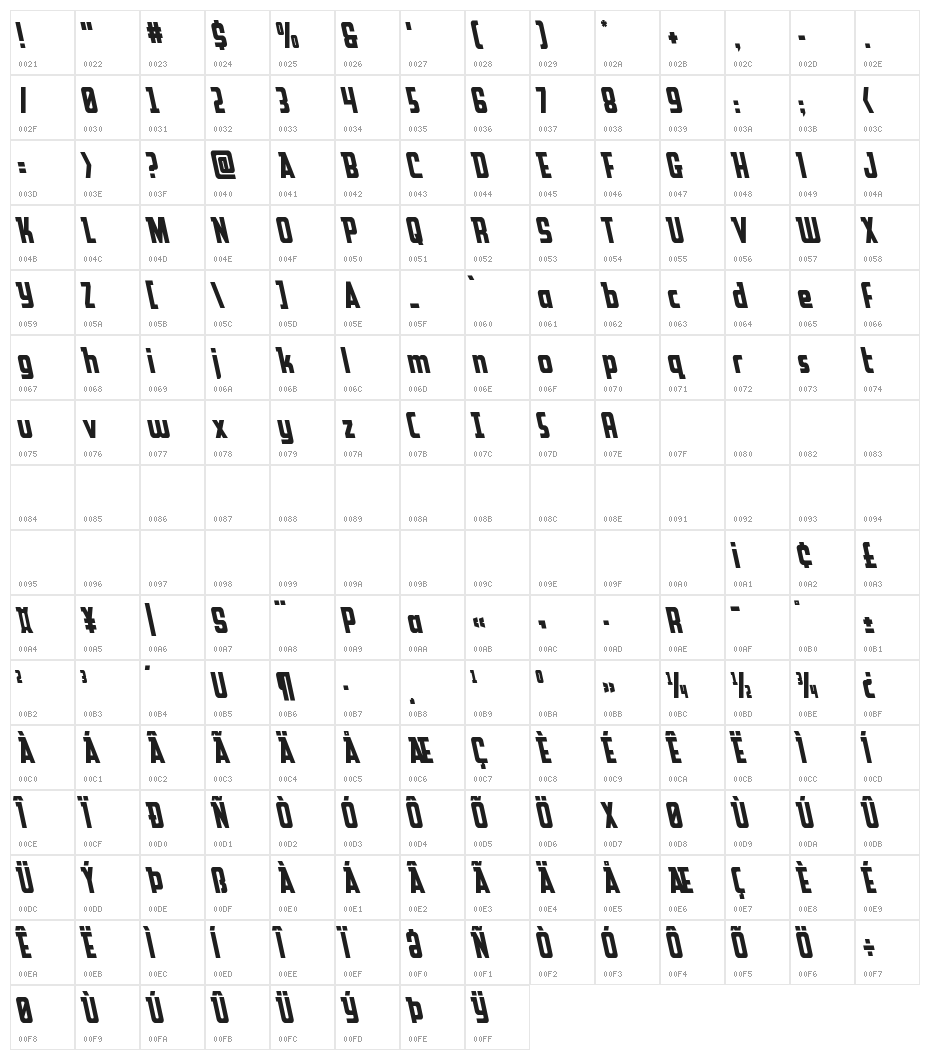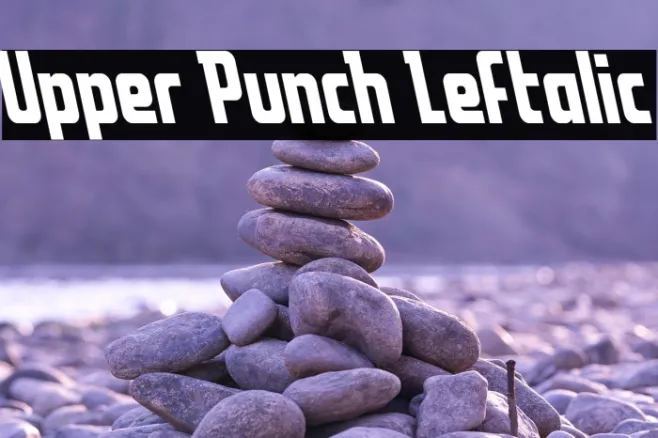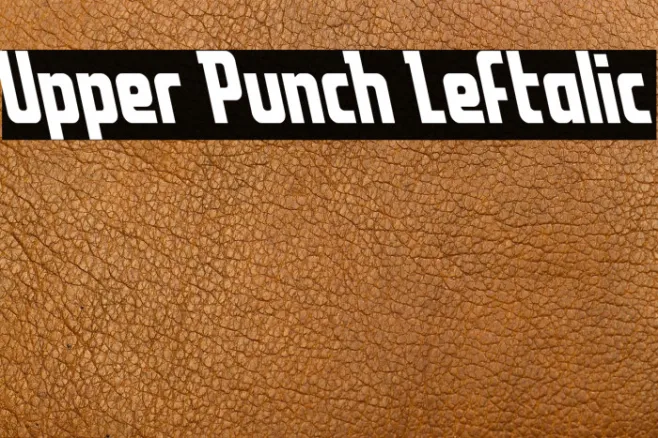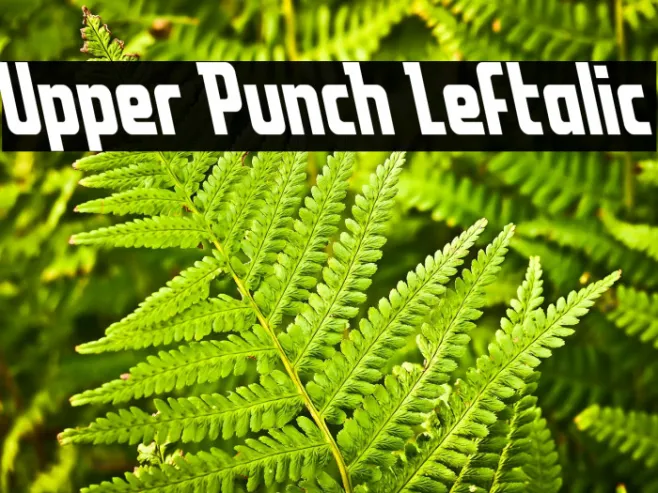
Upper Punch Leftalic Font
Upper Punch Leftalic Description
This font features a bold and dynamic style with a distinct slant to the left, giving it a sense of movement and energy. The characters are thick and robust, with a geometric structure that emphasizes strength and impact. The uppercase and lowercase letters maintain a consistent weight, while the numerals and special characters are designed to match the overall boldness. The font's unique slant and heavy weight make it stand out, making it ideal for attention-grabbing designs.